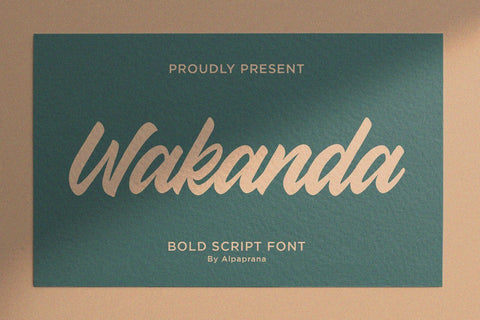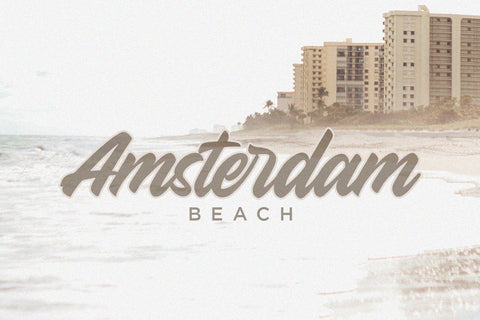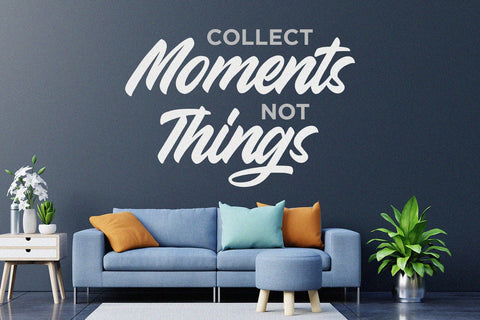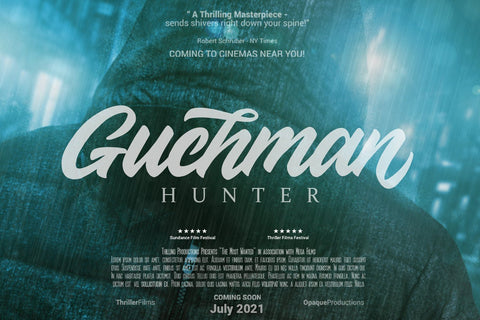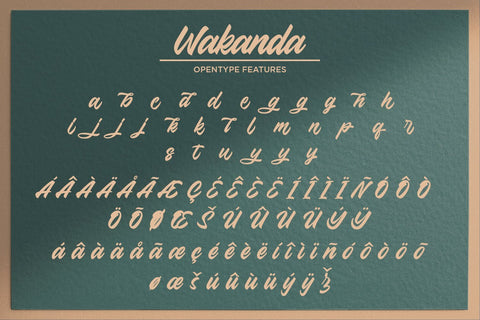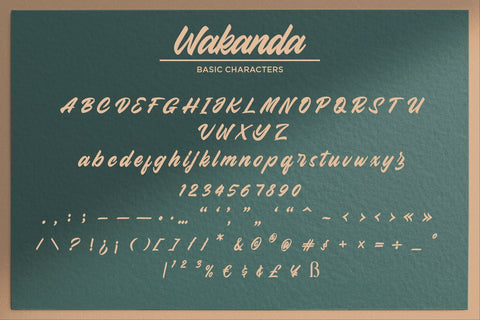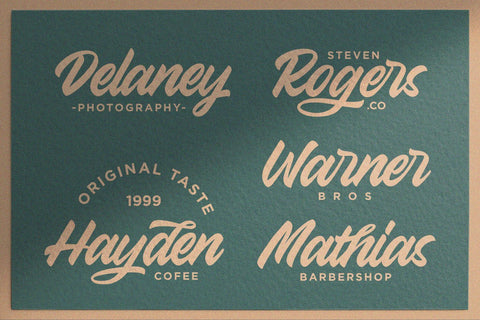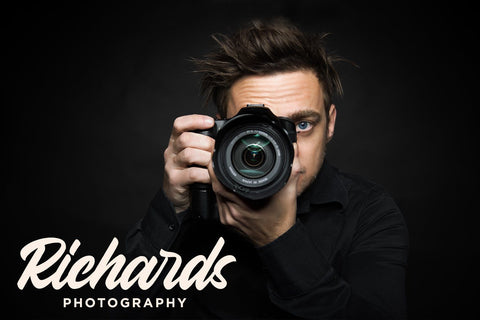
Wakanda - Bold Script Font
Wakanda is a stunning Bold style script font with authentic and casual feels. It will be perfectly used for Branding, Logo Design, Lettering, Logotype, Clothing, Poster, magazine, packaging, posters, shopping bags, t-shirts, book covers, photography, special events and other design project.